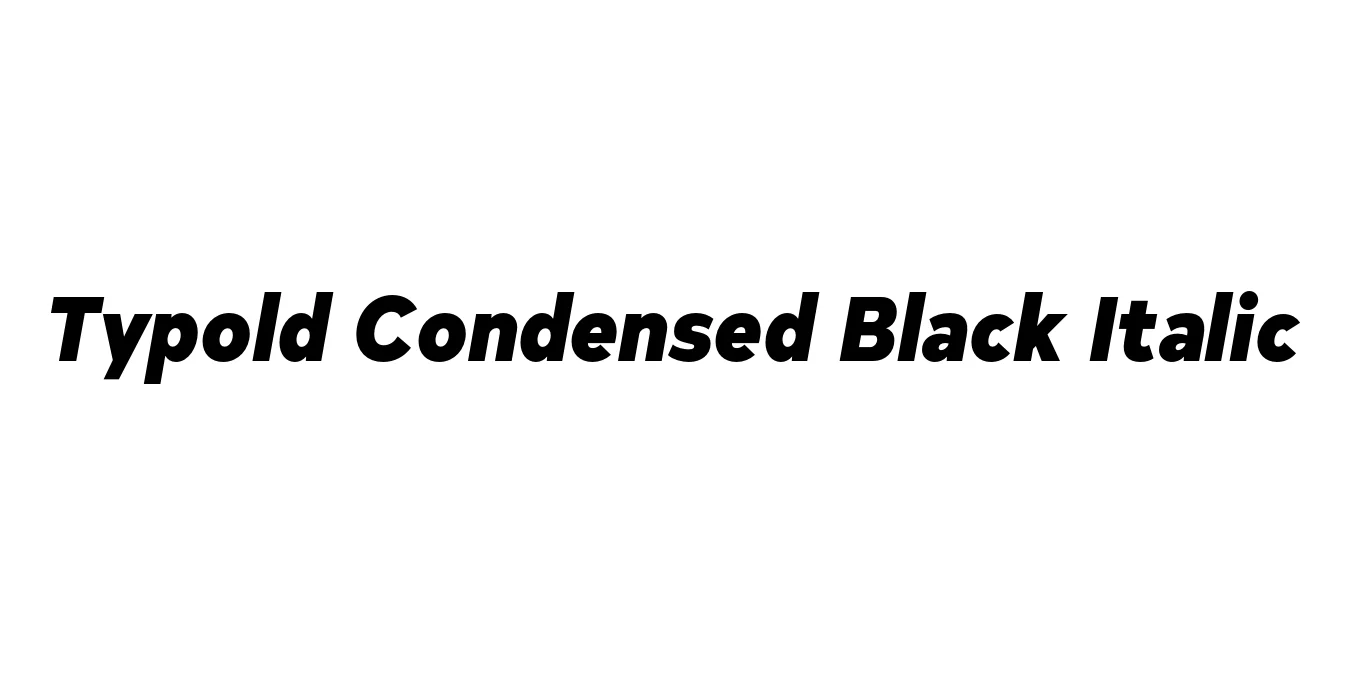
Typold Condensed Black Italic
Designed by Jonathan Hill
Typold Condensed Black Italic is a high-performance geometric sans-serif designed by Jonathan Hill for The Northern Block. It represents a refined evolution of the original Typold family, specifically engineered to provide maximum impact in constrained horizontal spaces. The Black Italic weight offers a powerful, forward-leaning aesthetic that combines mathematical precision with a modern, technical feel, ensuring that each character maintains clarity and structural integrity even at its most extreme density.
This typeface is part of a larger system that focuses on balance and legibility across digital and print platforms. The Condensed proportions make it an excellent choice for designers looking to create bold, authoritative headlines without sacrificing vertical rhythm. Its sharp angles and consistent stroke weights reflect a contemporary approach to typography, making it a staple for editorial layouts, high-end branding, and sophisticated user interfaces.
Typold Condensed Black Italic Best Uses
Ideal for powerful, attention-grabbing titles in magazines and digital media.
Excellent for tech-focused or athletic brands requiring a sense of speed and strength.
Perfect for large-scale outdoor advertising where space is limited.
Works well for high-contrast typographic posters and cinematic credits.